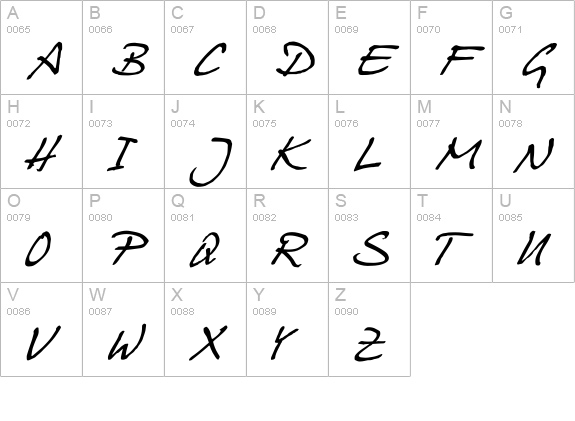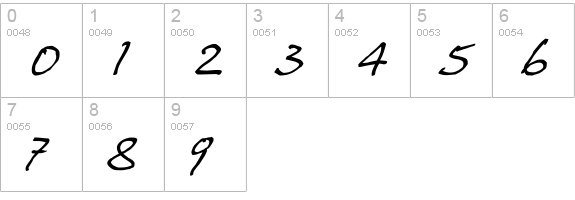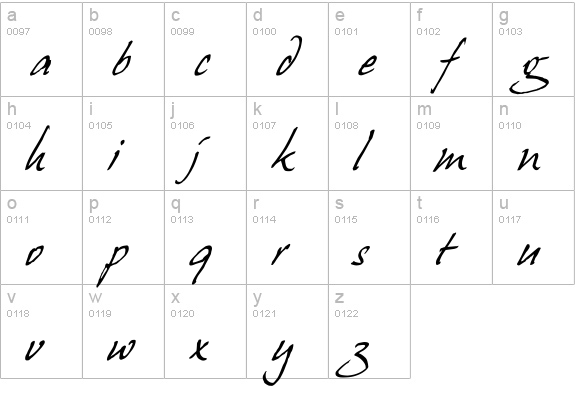
HansHand Font Details
Introducing HansHand font, a delightful and whimsical typeface that will add a touch of charm to any project. With its playful yet elegant design, HansHand is perfect for creating eye-catching headlines, greeting cards, invitations, and more. This font is a true testament to the art of handwritten typography, as each character is carefully crafted to evoke a sense of warmth and authenticity. From its gracefully flowing curves to its unique letterforms, HansHand captures the essence of hand-drawn beauty. But what sets HansHand apart is not only its exceptional design, but also its accessibility. This font is available for free download at FontsMarket.com, allowing designers, enthusiasts, and creatives of all levels to easily access and utilize its captivating charm. Whether you're working on a personal project or a professional endeavor, HansHand will effortlessly elevate your designs with its whimsical personality. Its versatility makes it suitable for a wide range of applications, from branding and packaging to social media graphics and beyond. So why wait? Embrace the magic of HansHand font and infuse your creations with a touch of handwritten elegance. Download it for free at FontsMarket.com and unlock endless possibilities in your design journey.